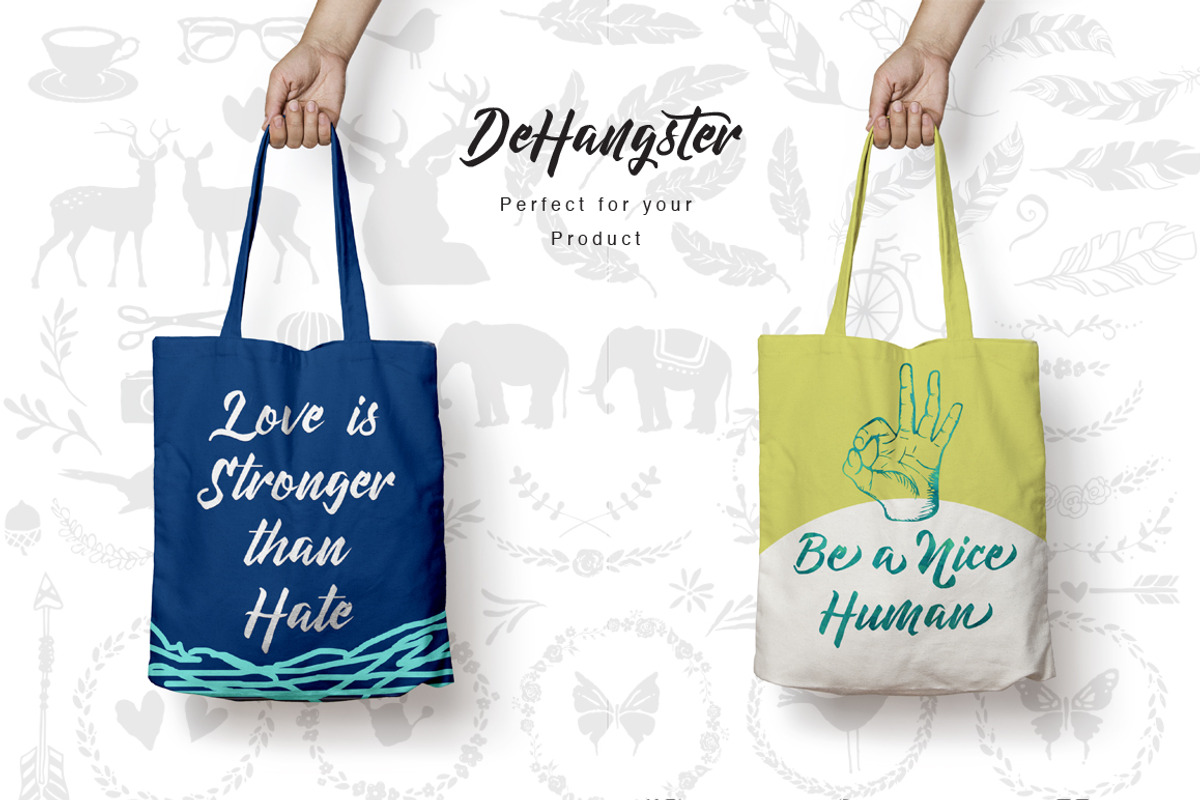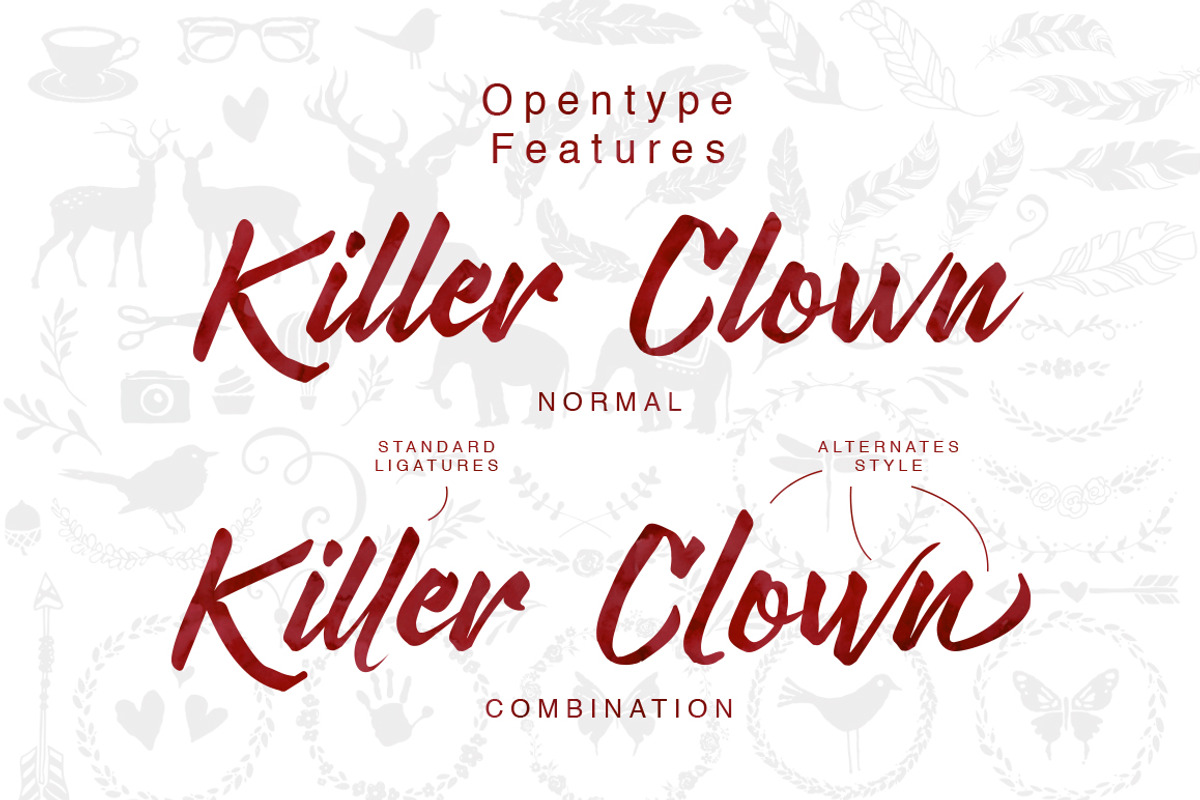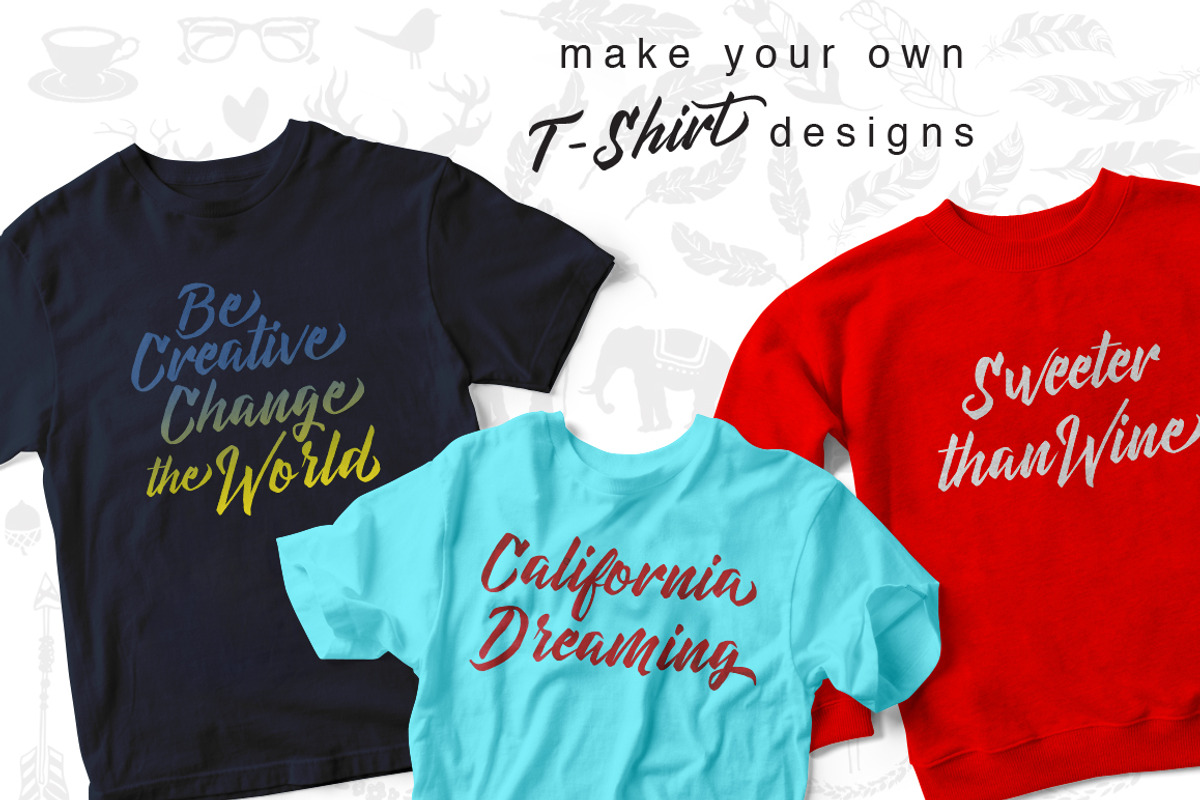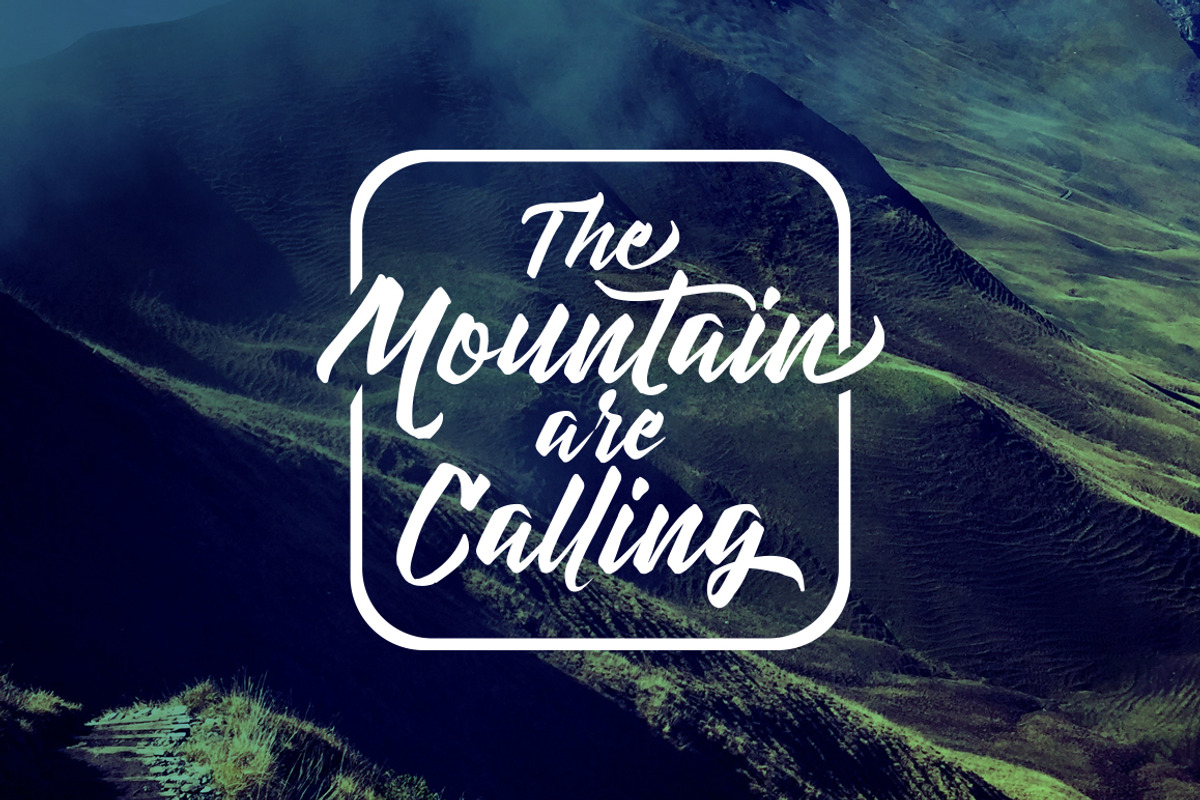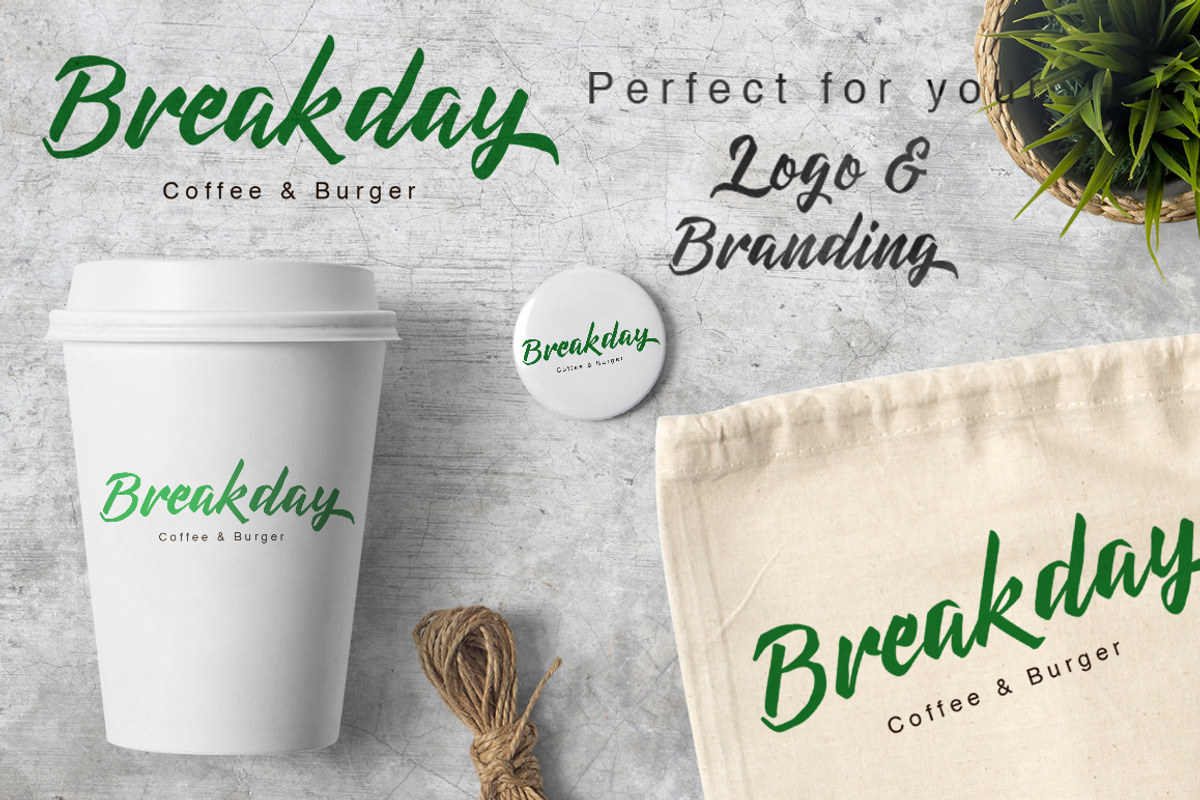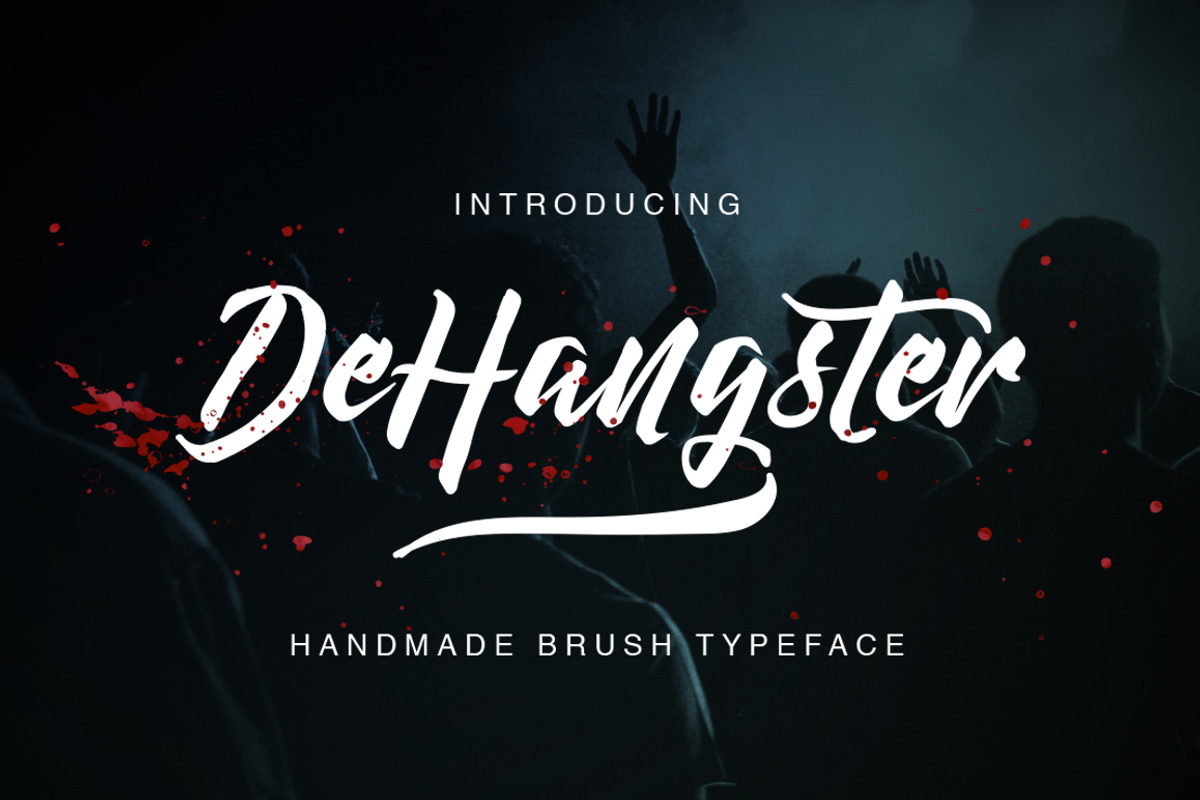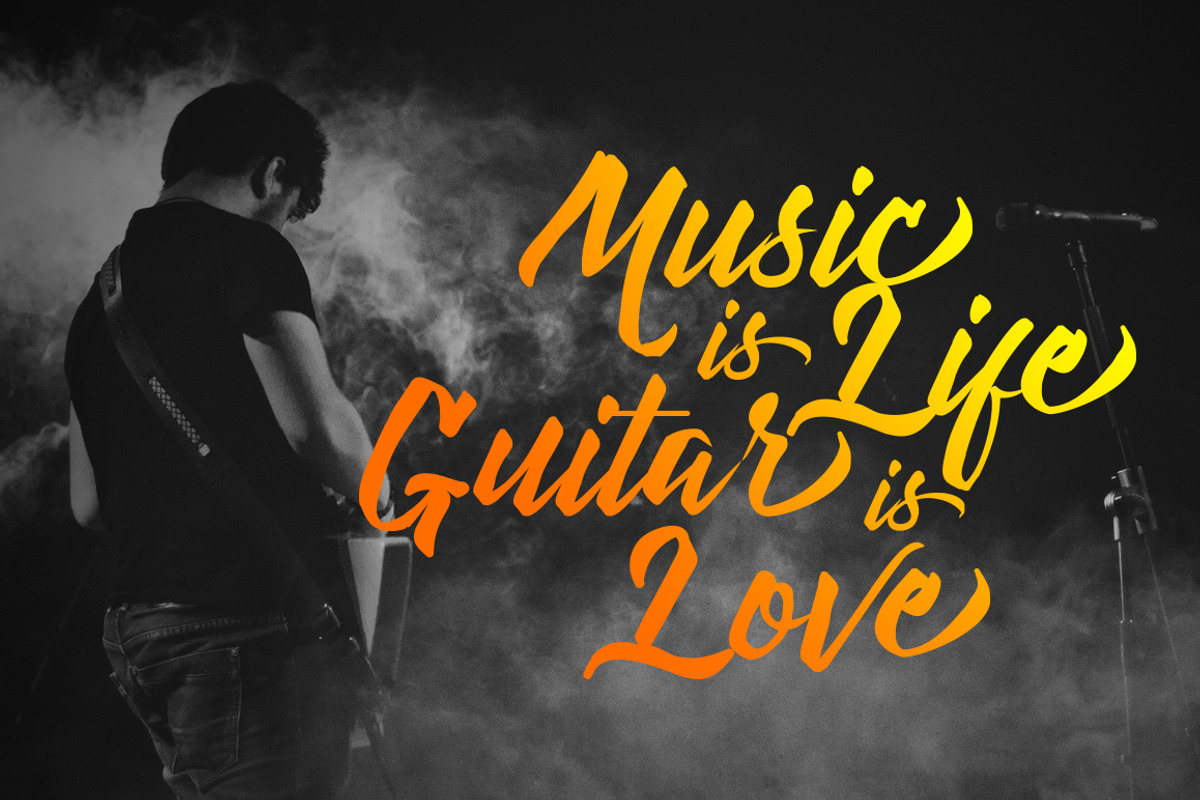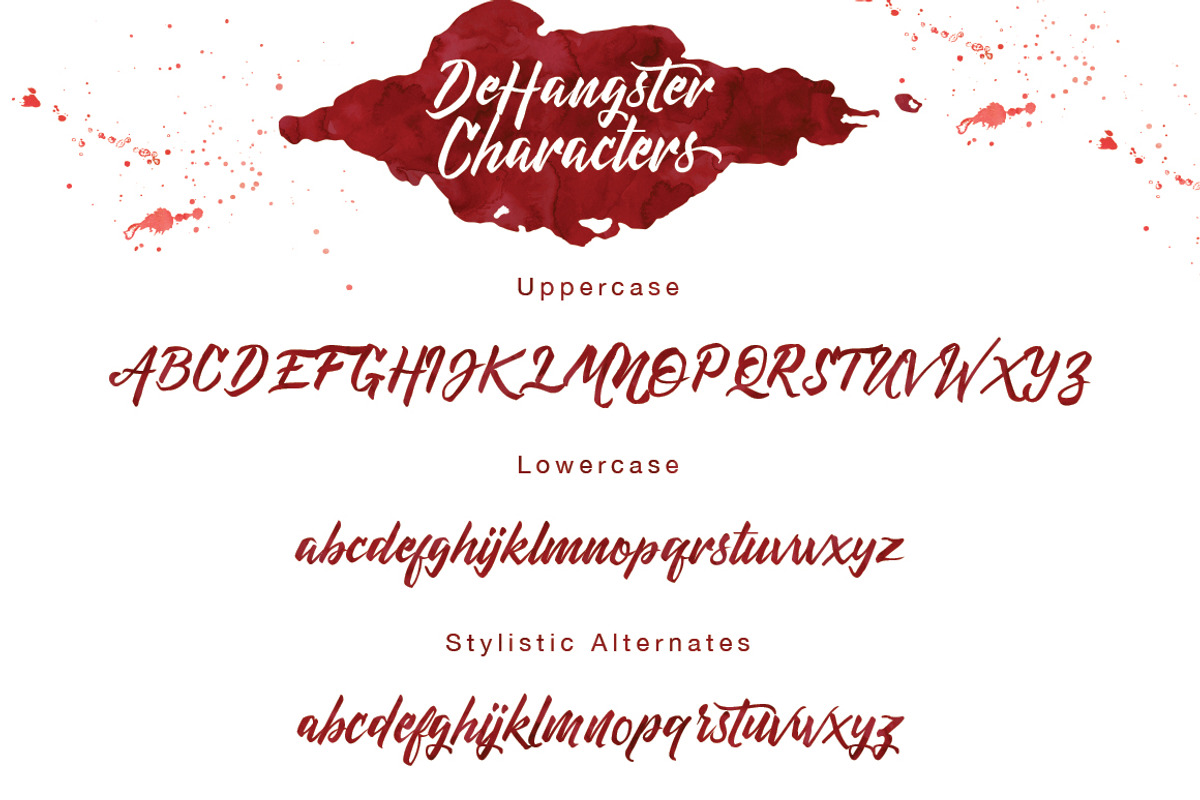
DeHangster Typeface
DeHangster Typeface by QueenType is a font selected for branding, posters, packaging, typography.
- Alternate character contain with Ligature and more.
- Mix and match the alternate characters to add an attractive message to your design.
Why DeHangster Typeface is worth a look
DeHangster Typeface by QueenType fits naturally into Branding, posters, packaging, typography.